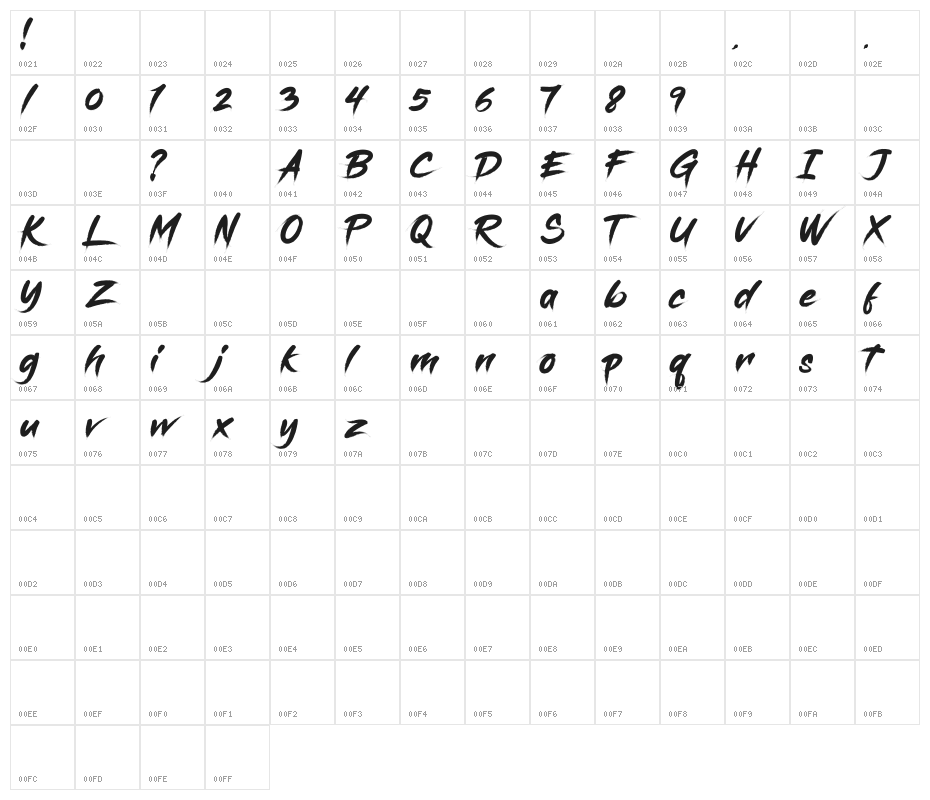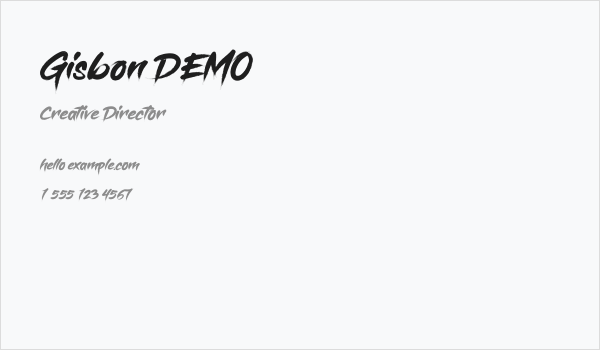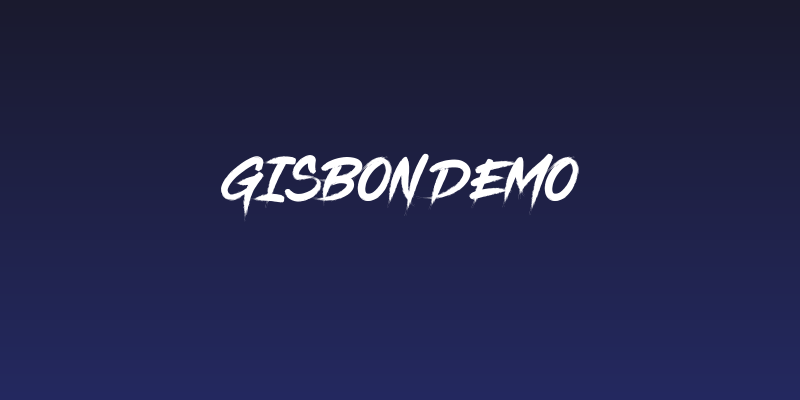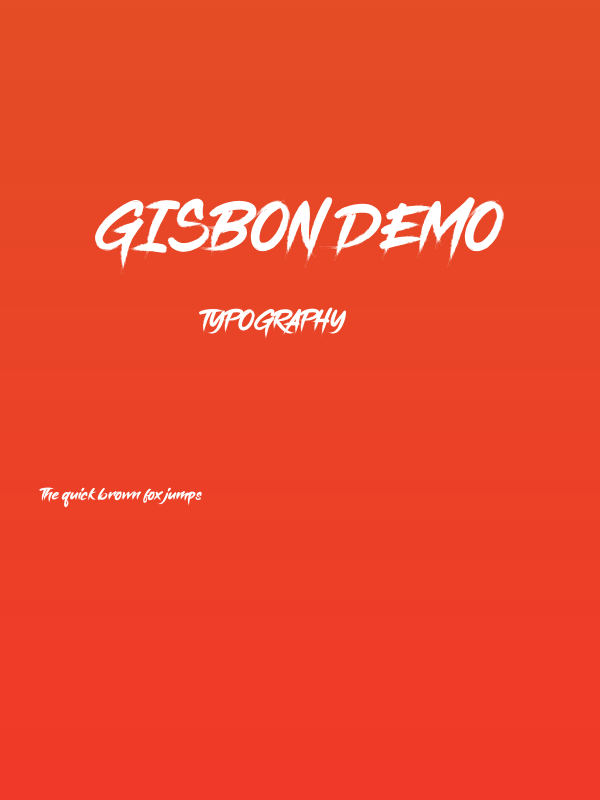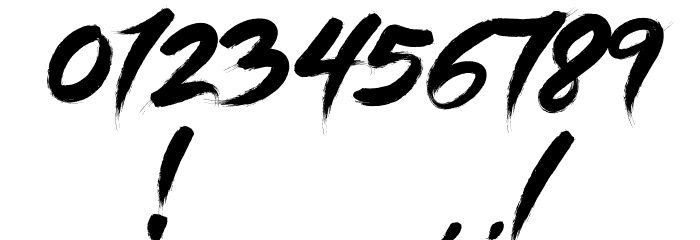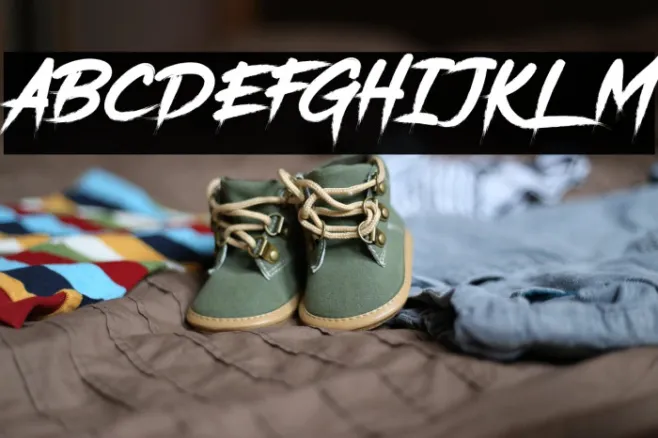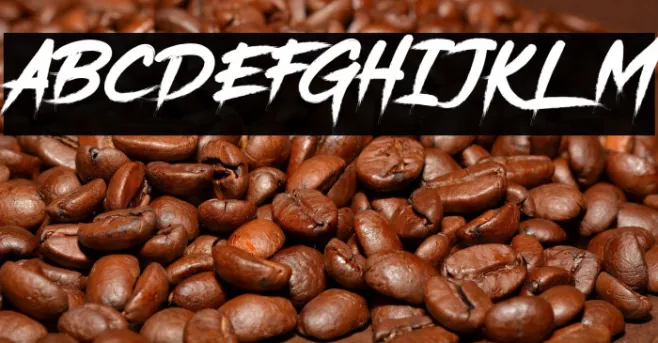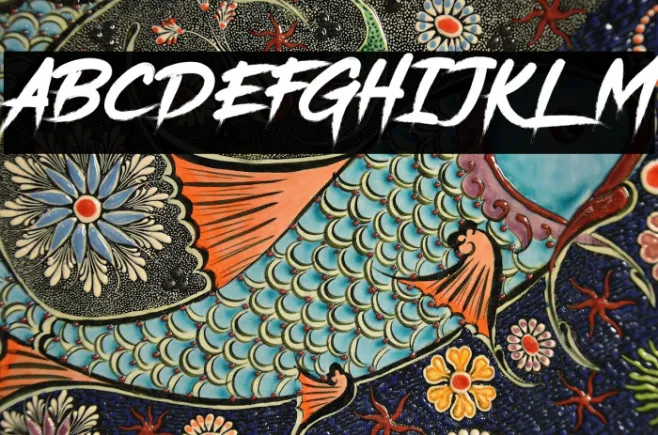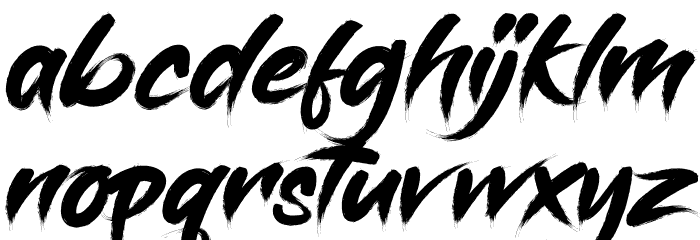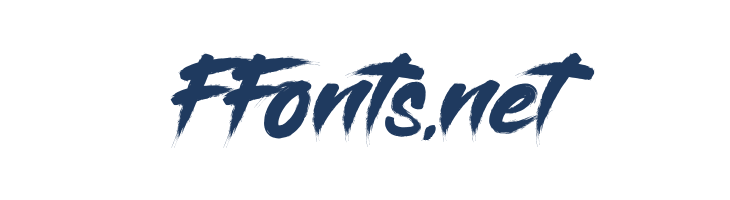
Gisbon DEMO Font
This font features a bold and dynamic brush script style, characterized by its energetic and flowing strokes. The letters have a hand-painted appearance, with varying thickness that adds a sense of movement and liveliness. The uppercase letters are particularly striking, with dramatic flourishes and a sense of urgency. The lowercase letters maintain this dynamic quality, offering a cohesive look across the alphabet. Numbers and special characters are equally expressive, making this font suitable for creative and impactful designs.
| Proposed Projects | Ideal for branding, posters, and artistic projects that require a bold, expressive touch. |